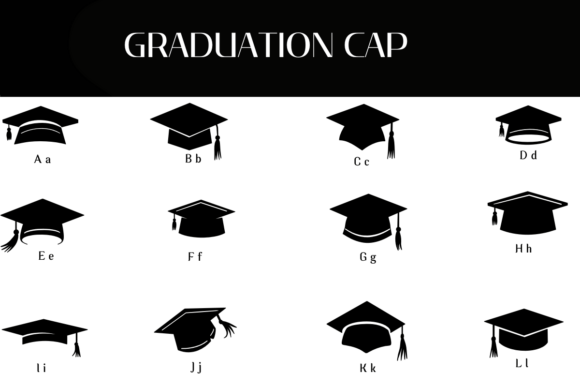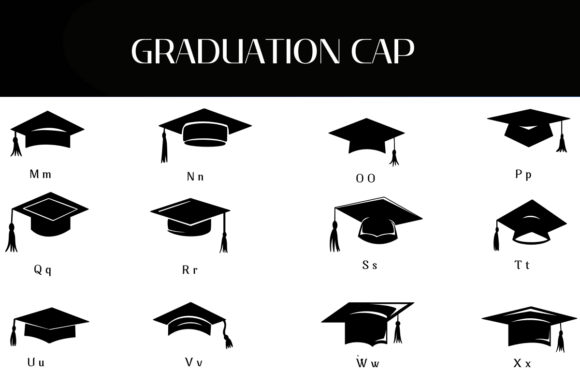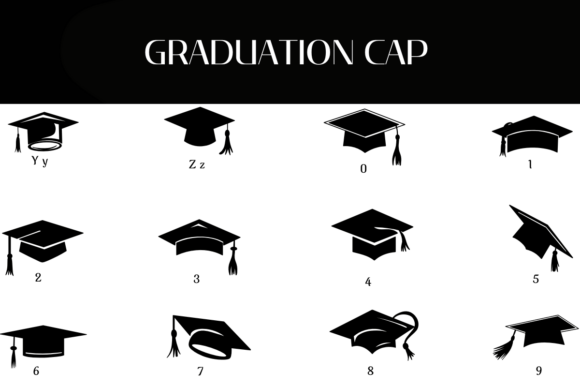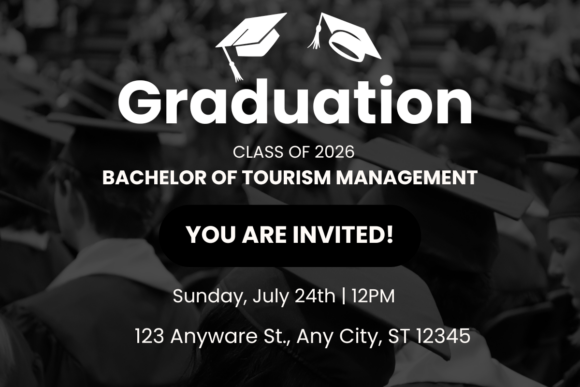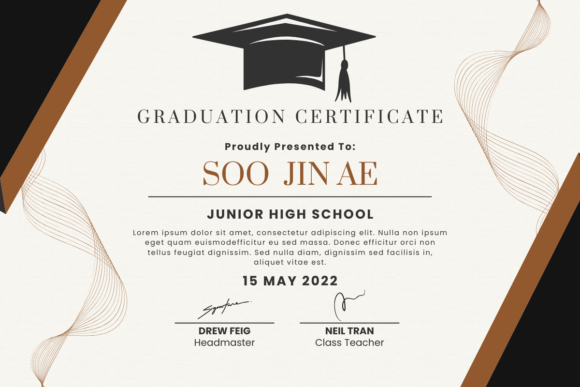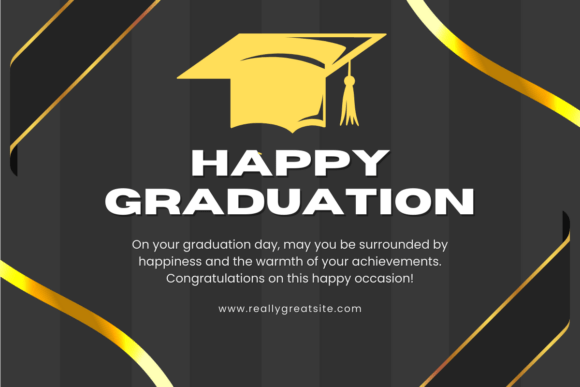
The Ultimate Graduation Cap Font: Elevate Your Designs with 🎓 Flair
I’ll never forget the time I was working on a graduation invitation project, and I just couldn’t find the perfect font to capture the celebratory spirit. My client wanted something that would make their graduates feel special, but I was stuck with bland, generic fonts that just didn’t cut it. That’s when I discovered the Graduation Cap Dingbats font, and it completely transformed my design. In this article, I’ll share my experience with this amazing font, its features, and how to make the most of it in your designs.
What Makes Graduation Cap Dingbats So Special? 🎓
Graduation Cap Dingbats is a unique and versatile dingbat font that features a variety of graduation cap silhouettes. With over 20 unique illustrations, this font is perfect for adding an academic touch to your designs. Whether you’re working on invitations, certificates, banners, greeting cards, or T-shirt prints, this font will instantly elevate your project.
Key Features:
- 20+ unique graduation cap illustrations 🎨
- Easy-to-use dingbat format 📝
- Perfect for invitations, banners, certificates, and more 🎉
My Honest Review: The Good and the Not-So-Good 🤔
- ✨ The variety of graduation cap illustrations is impressive, and each one is carefully crafted to capture the spirit of achievement.
- ✅ The font is incredibly versatile and can be used in a wide range of design projects.
- 🎉 The clear shapes and scalable vector quality make it perfect for both print and digital formats.
- ⚠️ Some of the illustrations may be a bit too intricate for very small font sizes.
- 🤔 The font may not work well with certain non-English characters or special characters.
The Story Behind Graduation Cap Dingbats 📝
Graduation Cap Dingbats was designed by a team of creatives who wanted to create a font that would capture the spirit of achievement and celebration. The designers drew inspiration from traditional graduation caps, as well as playful and modern illustrations. The result is a font that’s both elegant and fun, perfect for adding a touch of academic flair to your designs.